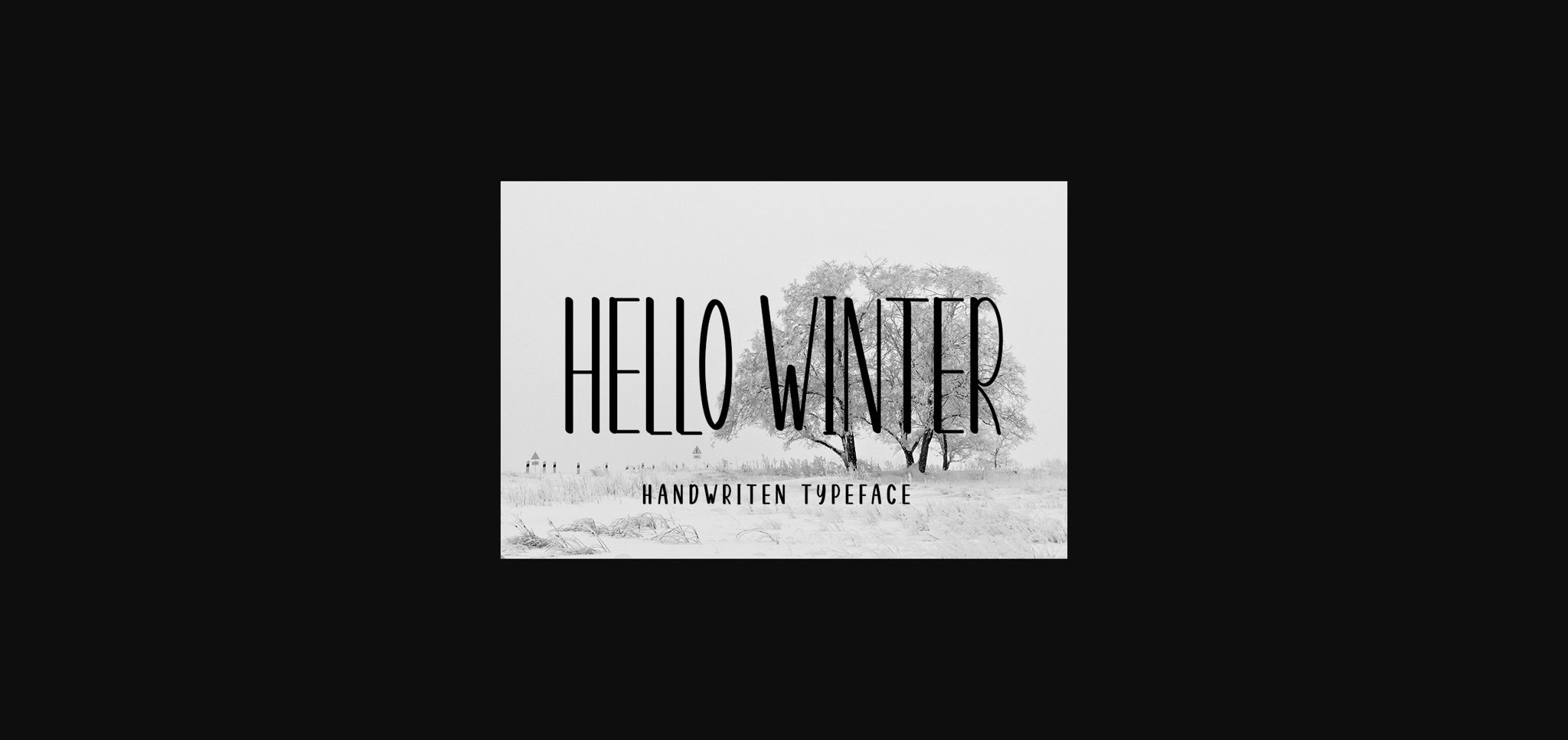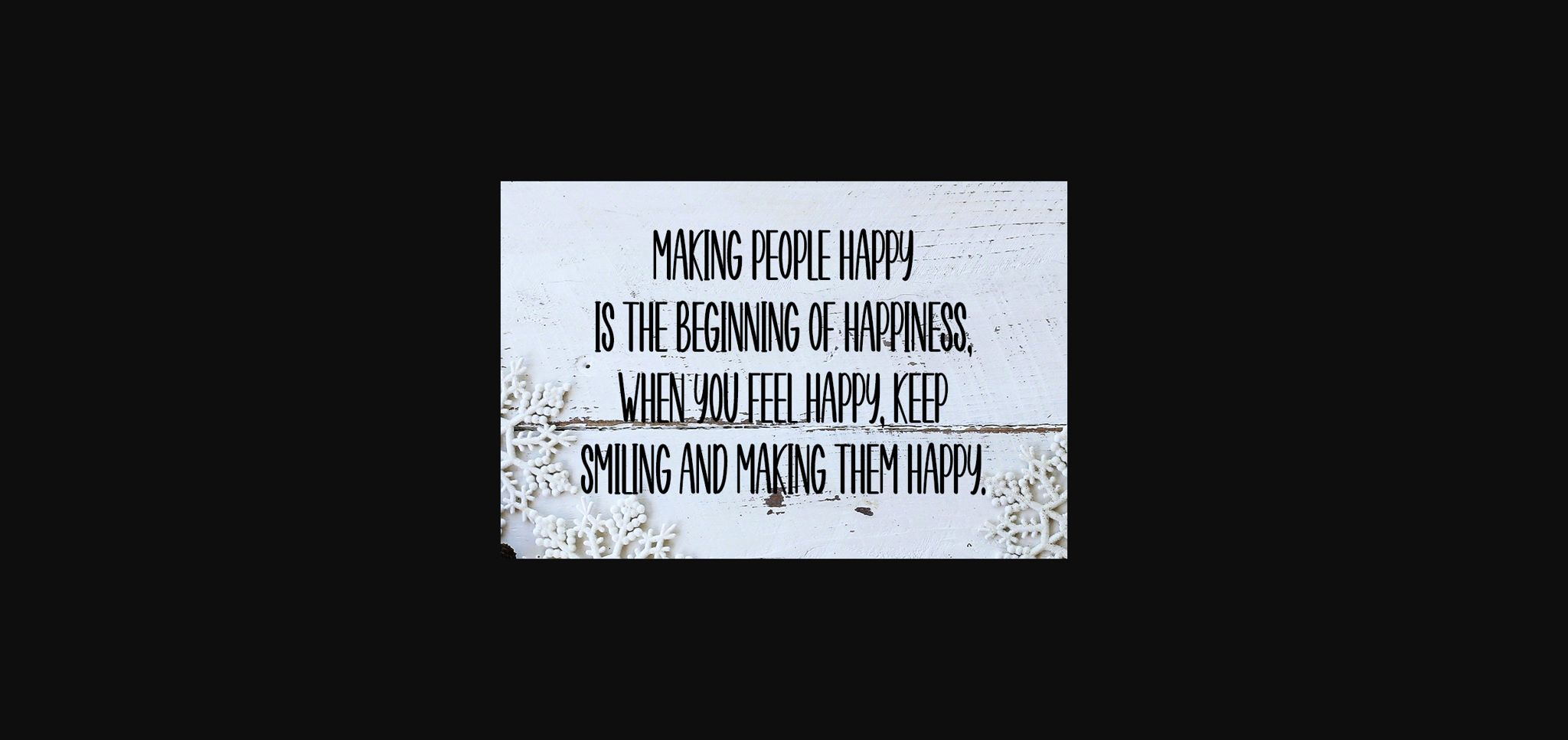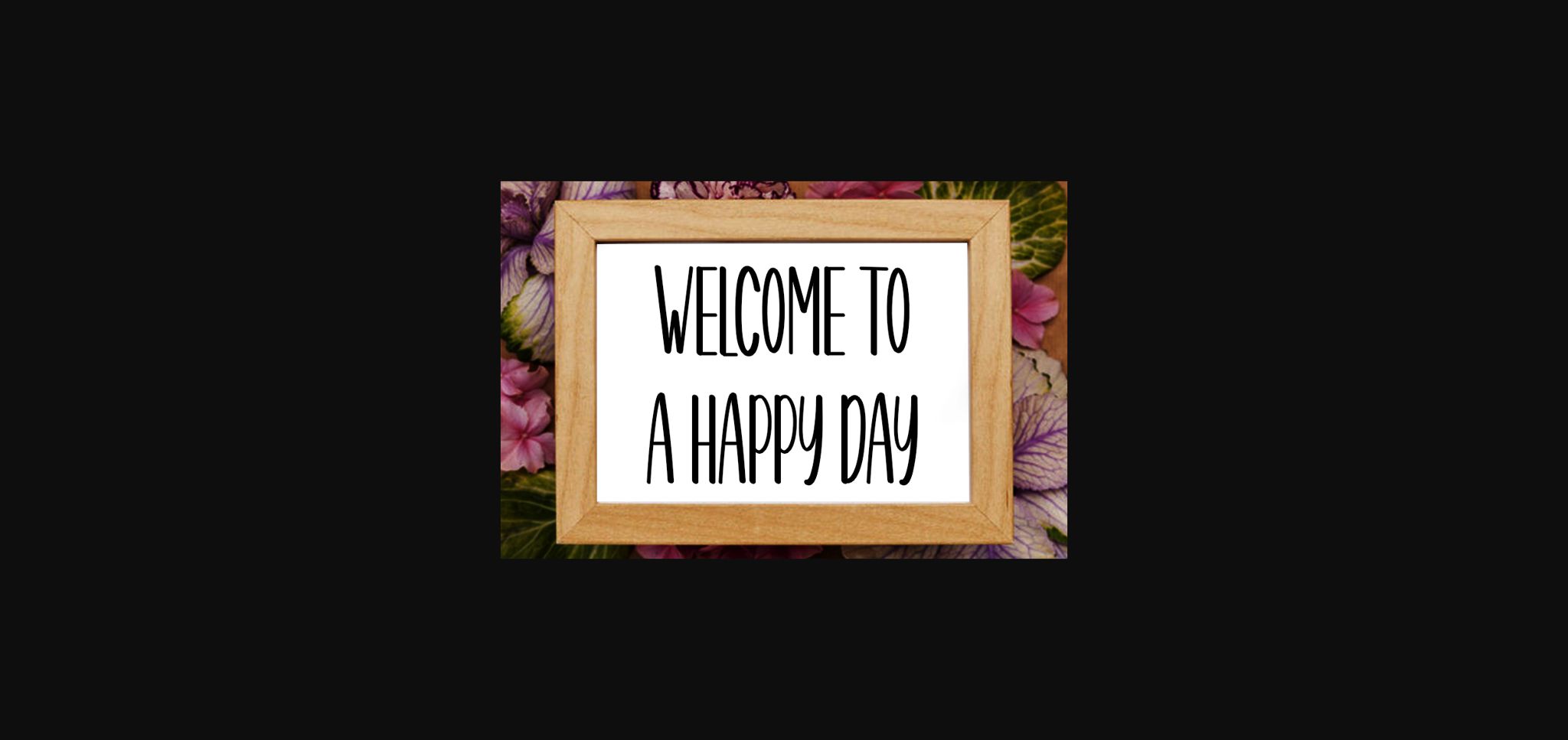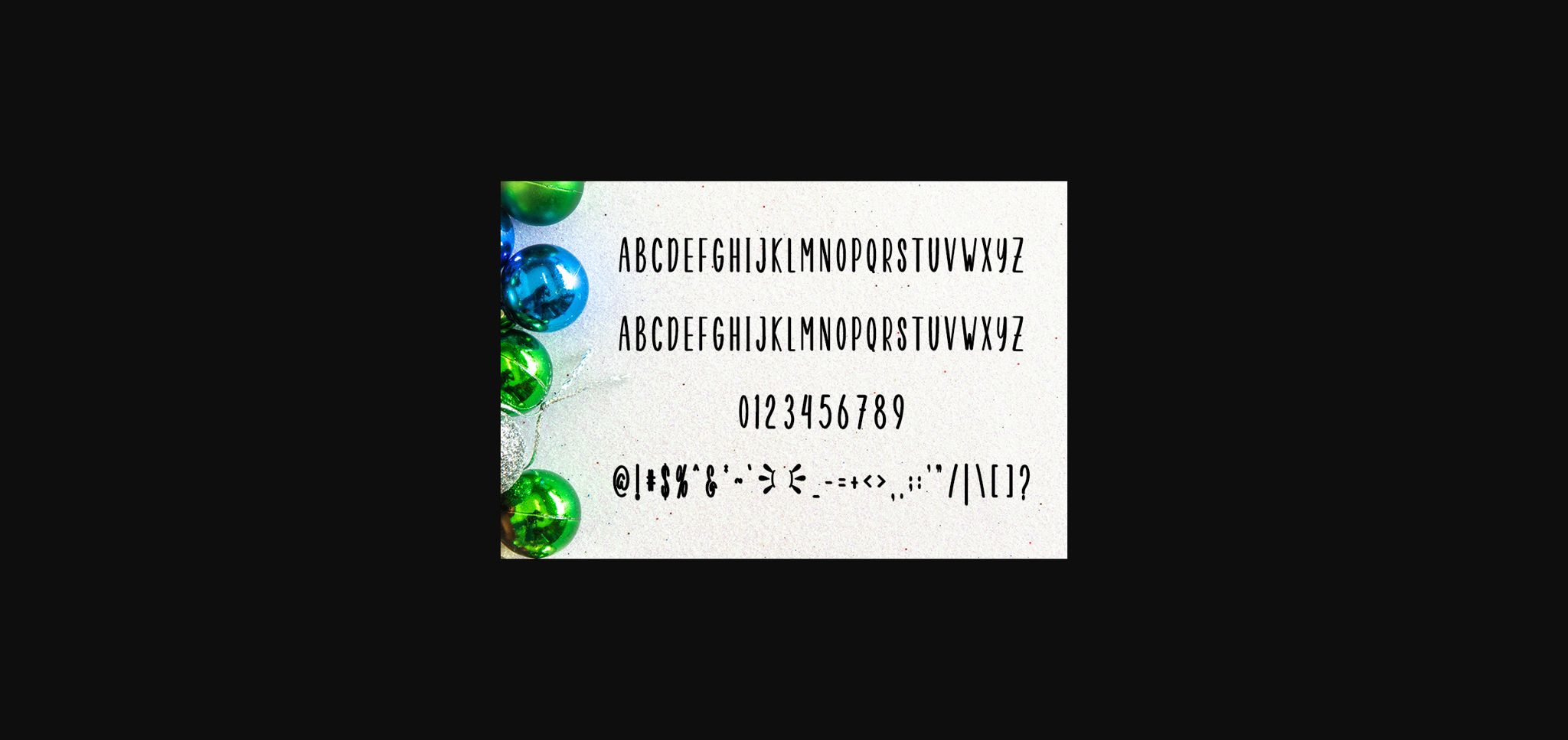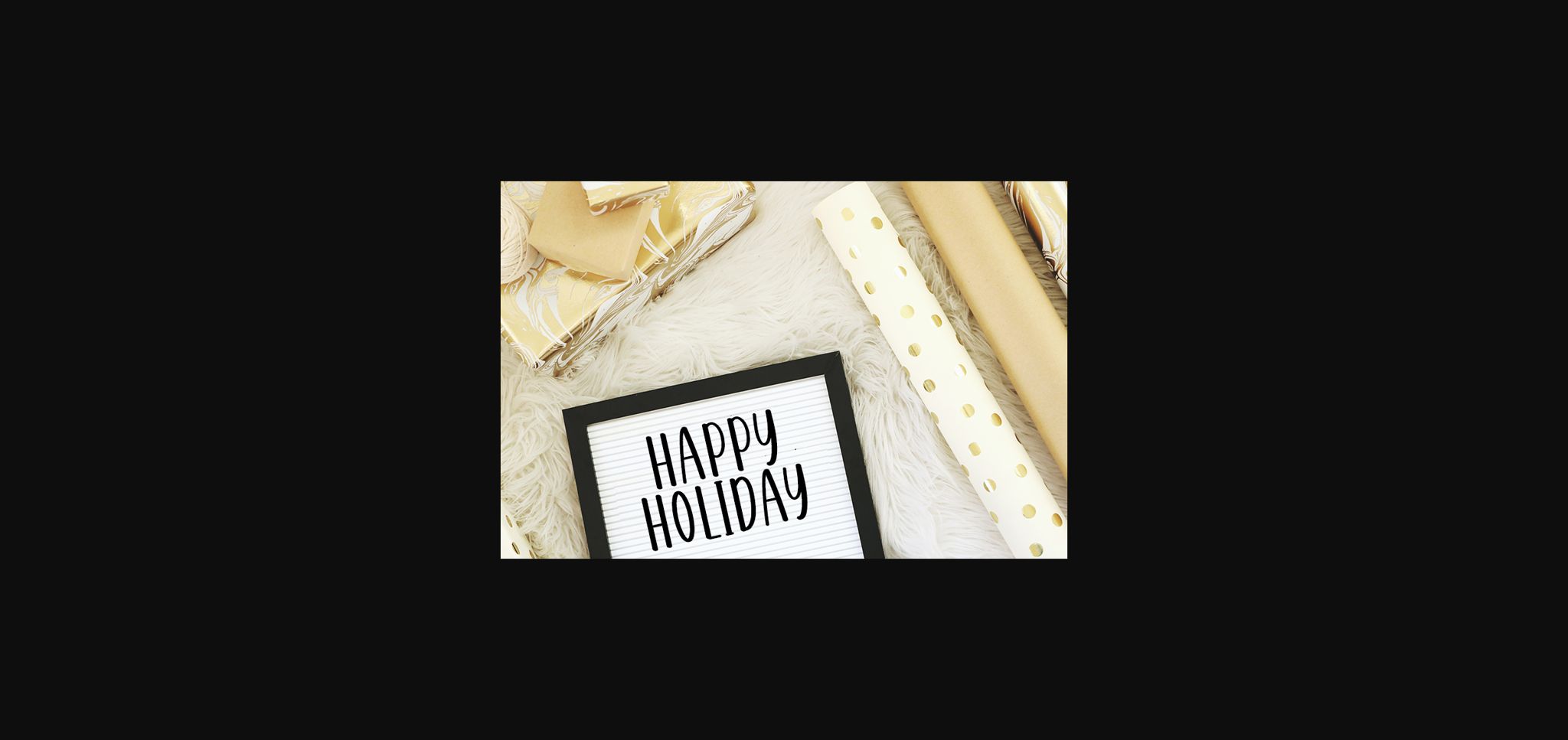
HomeSans Serif FontsHello Winter Font Sans Serif Fonts Hello Winter Font FacebookXPinterestWhatsApp 1 of 7 ... Hello Winter Font Poster 2... Hello Winter Font Poster 3... Hello Winter Font Poster 4... Hello Winter Font Poster 5... Hello Winter Font Poster 6... Hello Winter Font Poster 7... About Hello Winter Font Hello Winter is a simple and neat sans serif font. It can easily be matched to an incredibly large set of projects, so add it to your creative ideas and notice how it makes them stand out! DOWNLOAD NOW People also explored Aseina Font Agnella Extra Light Font Fostea Font Sean Font Laudiea Script Font Simple Mandala Font Caffe Bold Font Logays Font Hello Cole Font 309 0 TagsHello Winter Font Previous articleRaingold Budhe Shumiyati FontNext articleCalmius Font LEAVE A REPLY Cancel reply Comment: Please enter your comment! Name:* Please enter your name here Email:* You have entered an incorrect email address! Please enter your email address here Website: Save my name, email, and website in this browser for the next time I comment. Personal Use Free Morning Miow Personal Use Free Read more about this font BD AsciiMax Personal Use Free Read more about this font Meloche Book Personal Use Free Read more about this font Burgie Personal Use Free Read more about this font BLOG Using Fonts in Digital Marketing: Tips to Strengthen Your Brand Identity In the realm of digital marketing, every visual element plays a crucial role in shaping a brand's identity, and fonts are no exception. The... Modern Sans-Serif Fonts That Brands Love in 2025 Best Fonts for YouTube Videos: Make Your Thumbnails Stand Out Best Fonts for T-Shirt Design – Top 2025 Picks